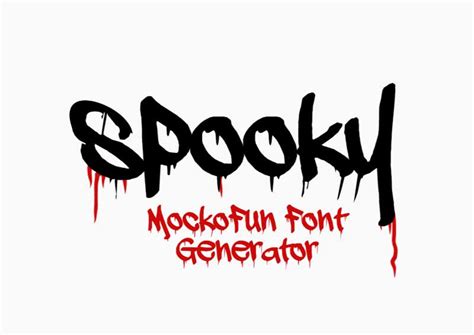
Spooky Font Generator Copy And Paste. Web copy and paste scary font from the scary font generator whenever you feel like giving jump scares with your words. Spooky fonts are good for designs where you want to create a feeling of fear or unease.
Use our creepy text generator to design glitch text for your social media accounts. If you are the bravest, do not miss our most horrible and dark fonts for you! You can copy and paste these spooky symbols into your social media posts so that you look like you're a l33t. Web copy and paste these cursed fonts to add some weirdness to your profiles! Web copy and paste scary font from the scary font generator whenever you feel like giving jump scares with your words. Spooky fonts are good for designs where you want to create a feeling of fear or unease. Web it converts normal text into creepy text with all sorts of weird and distorted markings (ll̵̜̈́i̵̙̽k̶͚̎ȅ̷͇ ̷̙̈t̸̙̃h̸͙̓į̴͗s̵̺̿). Web horror, fear and panic fonts. If you are the bravest, do not miss our most horrible and dark fonts for you!.
If you are the bravest, do not miss our most horrible and dark fonts for you!. Web copy and paste these cursed fonts to add some weirdness to your profiles! You can copy and paste these spooky symbols into your social media posts so that you look like you're a l33t. Web horror, fear and panic fonts. Web copy and paste scary font from the scary font generator whenever you feel like giving jump scares with your words. Web it converts normal text into creepy text with all sorts of weird and distorted markings (ll̵̜̈́i̵̙̽k̶͚̎ȅ̷͇ ̷̙̈t̸̙̃h̸͙̓į̴͗s̵̺̿). If you are the bravest, do not miss our most horrible and dark fonts for you! Use our creepy text generator to design glitch text for your social media accounts. If you are the bravest, do not miss our most horrible and dark fonts for you!. Spooky fonts are good for designs where you want to create a feeling of fear or unease.